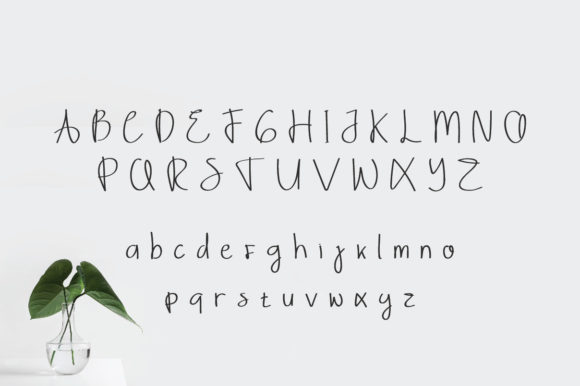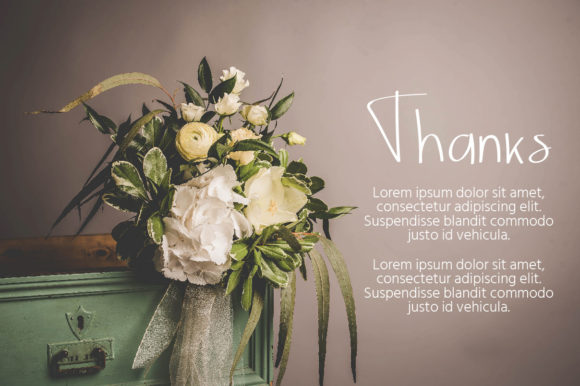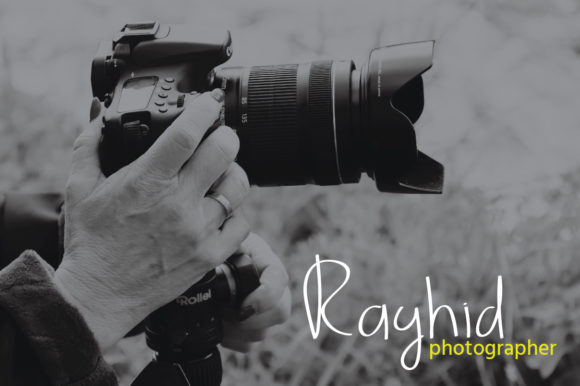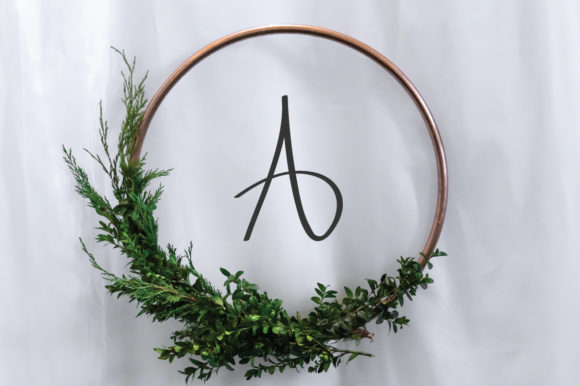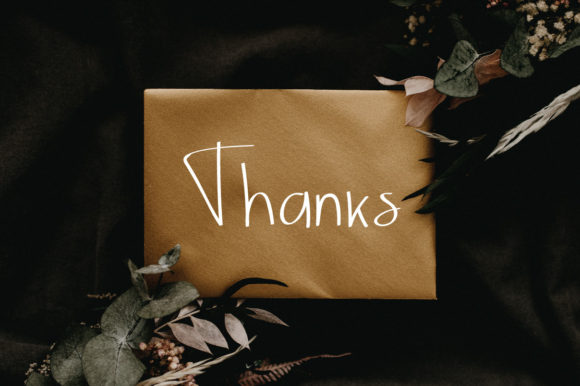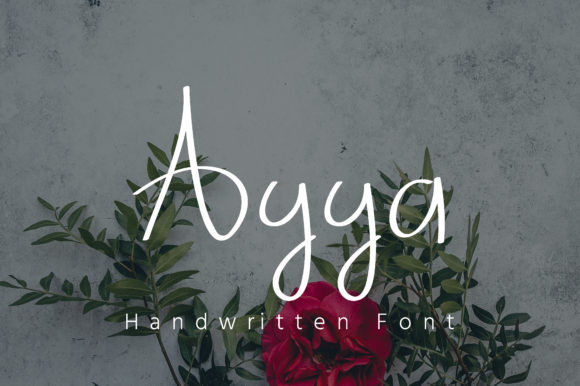
Ayya Font: The Perfect Script Font for Romantic Designs
Ayya Font is a beautiful, dainty, and flowing script font that is perfect for adding a touch of romance and elegance to your designs. With its lovely and delicate appearance, Ayya Font is ideal for use in love letters, wedding invitations, and other design projects where you want to make a lasting impression.
What Makes Ayya Font So Special?
Ayya Font is a unique and exquisite script font that stands out from the crowd. Its flowing lines and delicate curves make it perfect for creating romantic and whimsical designs. Whether you’re a designer, crafter, or DIY enthusiast, Ayya Font is a great addition to your font collection.
Uses for Ayya Font
Ayya Font is incredibly versatile and can be used in a variety of design projects, including:
- Love letters and romantic messages
Benefits of Using Ayya Font
There are many benefits to using Ayya Font in your designs, including:
- Elegance and sophistication: Ayya Font adds a touch of elegance and sophistication to your designs, making them perfect for special occasions and romantic gestures.
- Uniqueness and creativity: Ayya Font is a unique and creative font that will help your designs stand out from the crowd.
- Easy to read and understand: Despite its delicate appearance, Ayya Font is easy to read and understand, making it perfect for use in body text and captions.
- Customizable: Ayya Font can be customized to fit your design needs, including adjusting the font size, color, and style.
Tips for Using Ayya Font
Here are some tips for using Ayya Font in your designs:
- Pair with complementary fonts: Pair Ayya Font with complementary fonts to create a beautiful and harmonious design.
- Use in combination with images: Use Ayya Font in combination with images to add an extra layer of meaning and context to your design.
- Experiment with colors and textures: Experiment with different colors and textures to add depth and interest to your design.
- Keep it simple and elegant: Keep your design simple and elegant to let Ayya Font shine.
Ayya Font is a beautiful and elegant script font that is perfect for adding a touch of romance and sophistication to your designs. With its delicate appearance and flowing lines, Ayya Font is ideal for use in wedding invitations, love letters, and other design projects where you want to make a lasting impression. Whether you’re a designer, crafter, or DIY enthusiast, Ayya Font is a great addition to your font collection.
FAQs About Ayya Font
Here are some frequently asked questions about Ayya Font:
- What type of font is Ayya Font?
- Ayya Font is a script font.